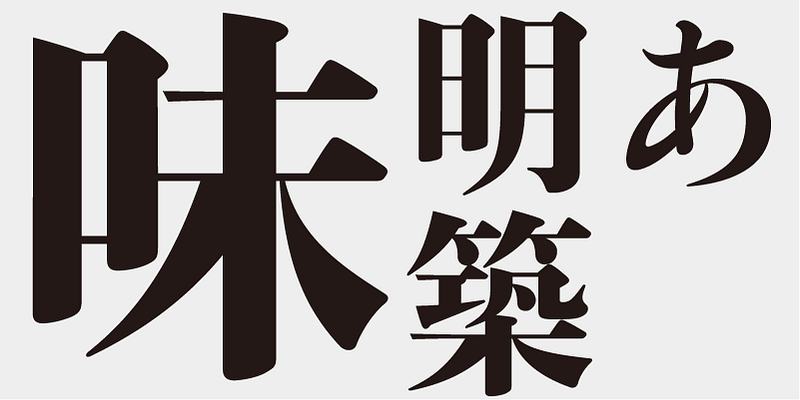
AB Ajimin Chiku/EB Font Free Download is a sophisticated extra bold serif typeface rooted in the classical elegance of Japanese Mincho style, reimagined with a modern flair. The Chiku/EB version stands out with its pronounced contrast, firm vertical strokes, and delicately tapered serifs—making it ideal for editorial titles, luxury packaging, cultural publications, and projects that demand both tradition and visual authority.
This typeface offers a refined reading experience while maintaining a strong graphic presence. Supporting both Japanese and Latin scripts, AB Ajimin Chiku/EB is perfect for bilingual or globally oriented designs that call for harmony and cultural richness.